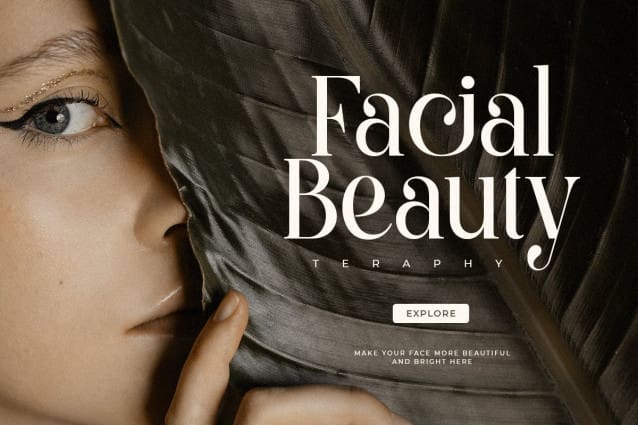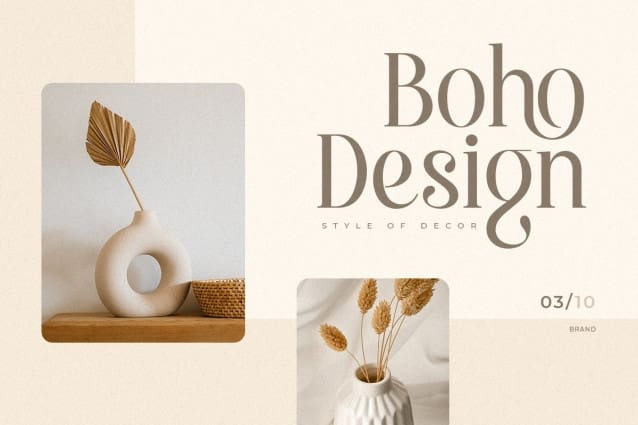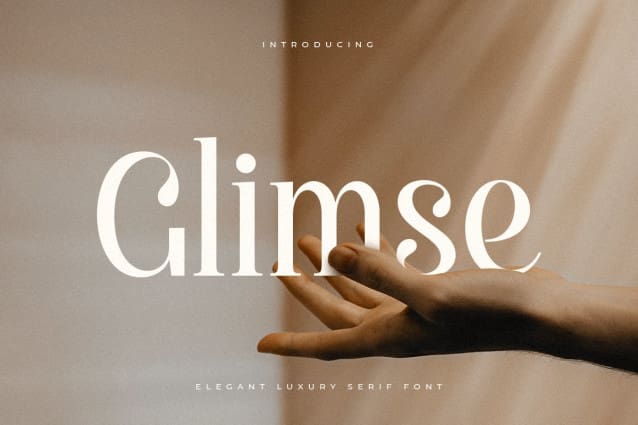
Glimse Font
Glimse Font a serif font that we created especially for elegant branding needs, with additional ligature and unique shape variations, will be ready to add value to your brand. It’s so nice to call on a designer or product owner who needs solutions to make their design more sleek and modern. And especially for Glimse font, we have prepared all ligatures and alternate characters to help you create unlimited variations for your creative needs.